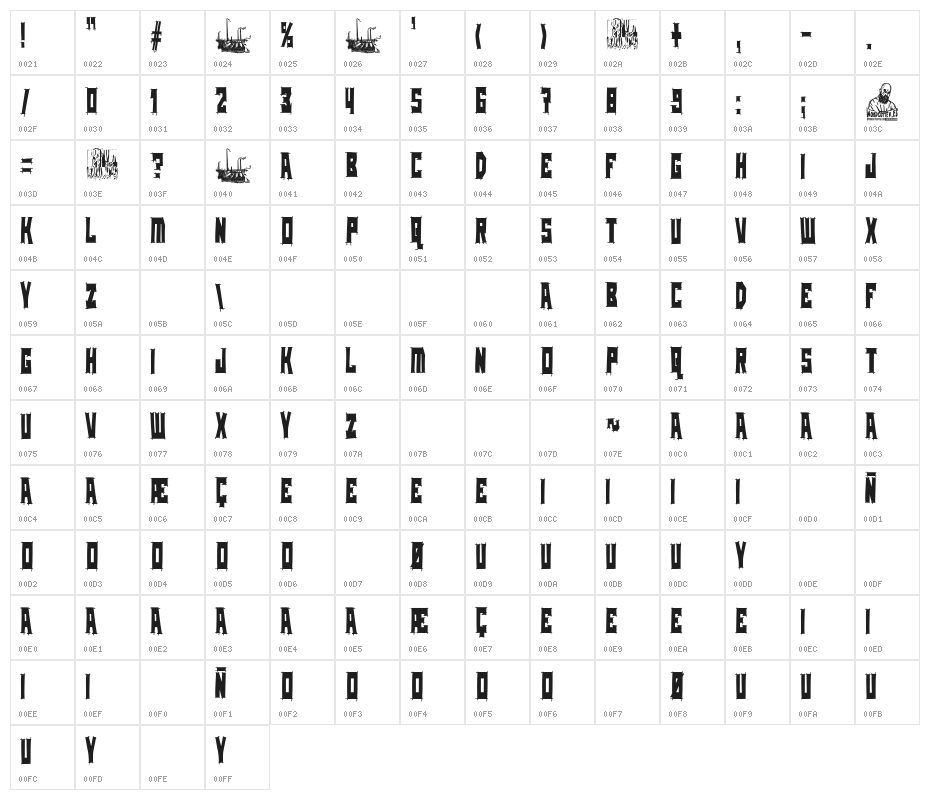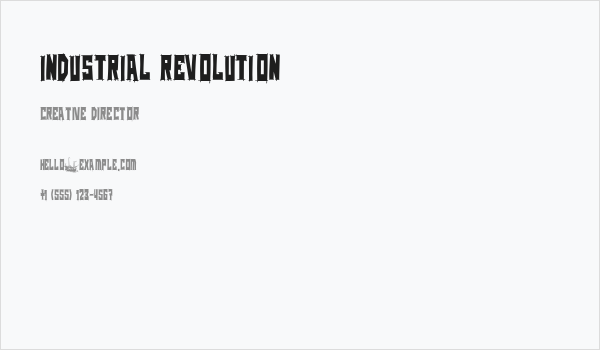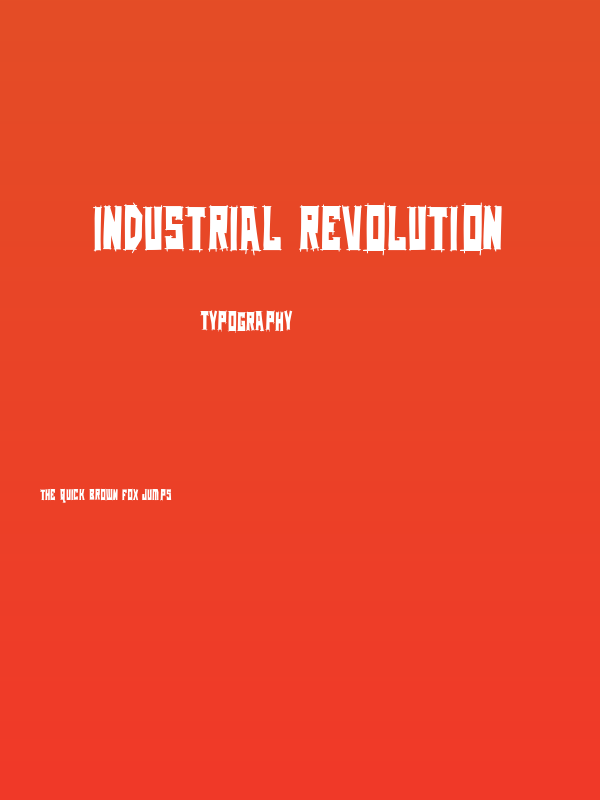
Industrial Revolution Font
Industrial Revolution Description
A bold, condensed display typeface with sharp, angular edges and industrial, mechanical details reminiscent of machinery or factory aesthetics. The characters are uppercase only, with exaggerated vertical strokes and minimal curves, giving a rugged, distressed appearance.
| Overall Style | Industrial, Decorative, Rugged |
| Proposed Projects | Posters, event flyers, industrial branding, video game titles, themed signage, album covers. |